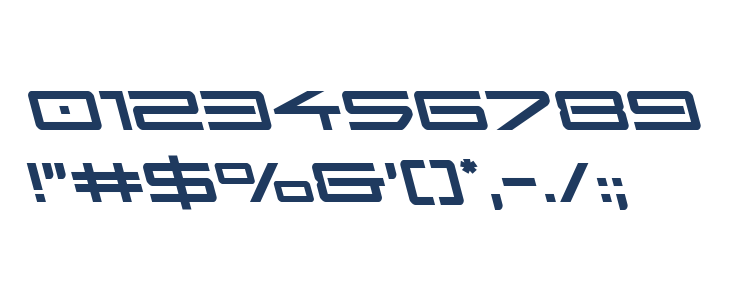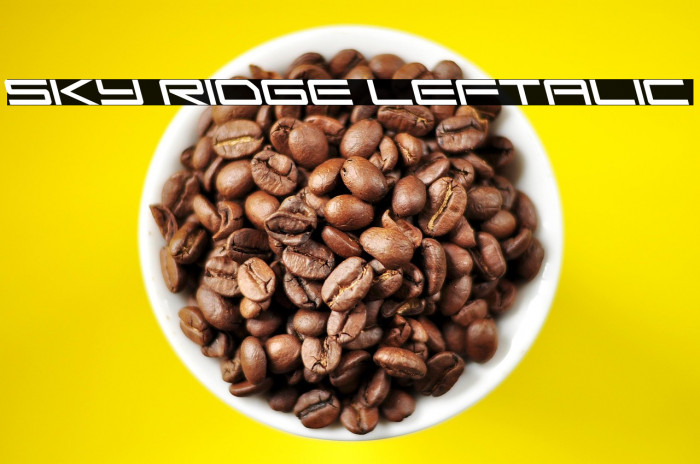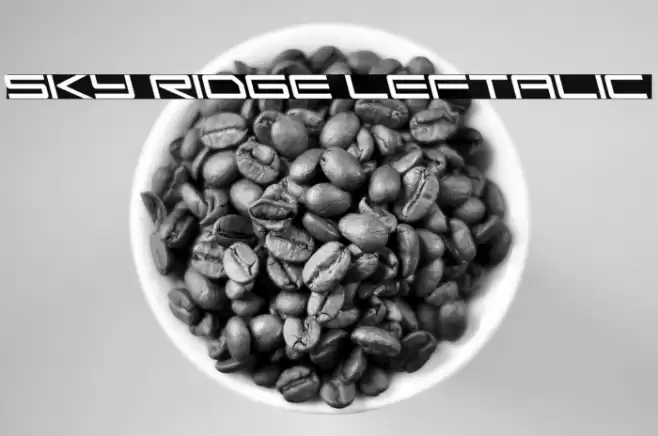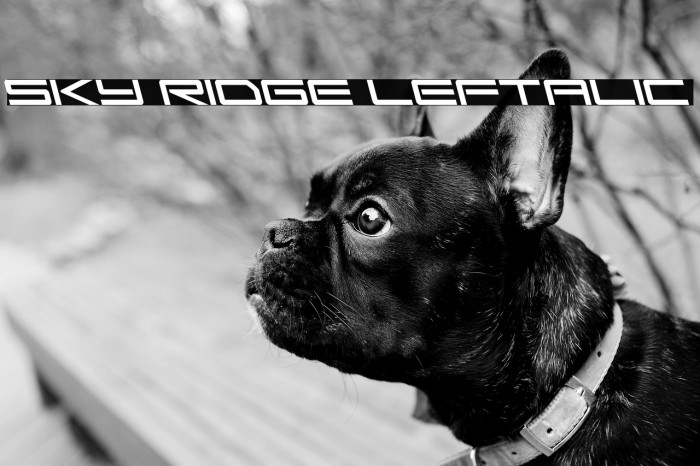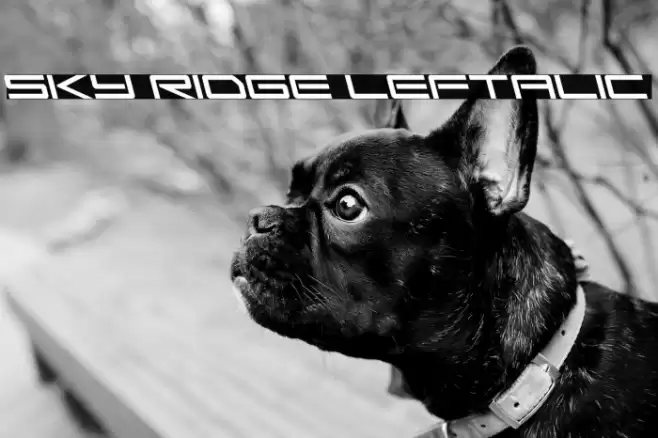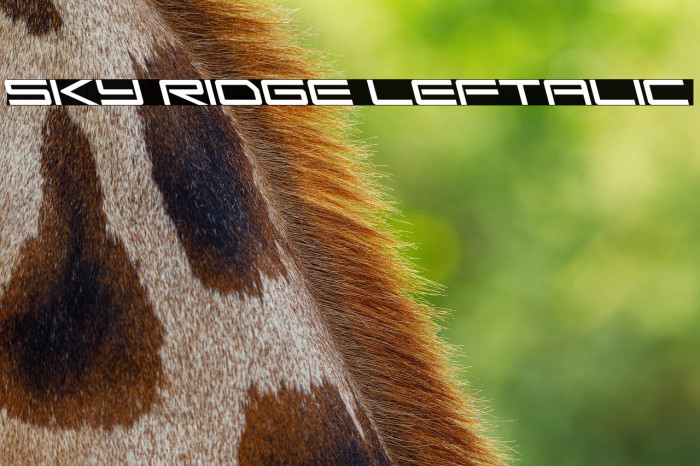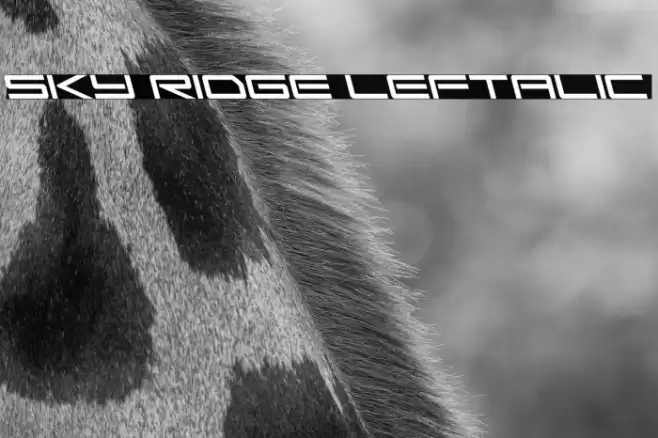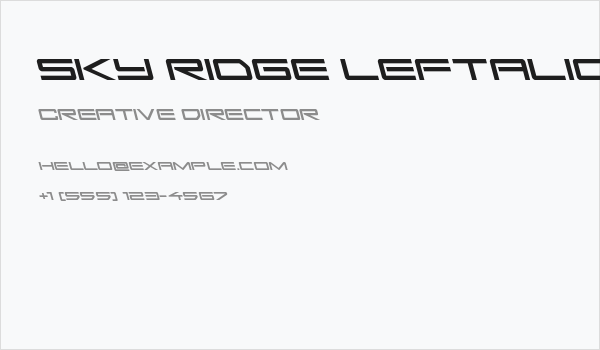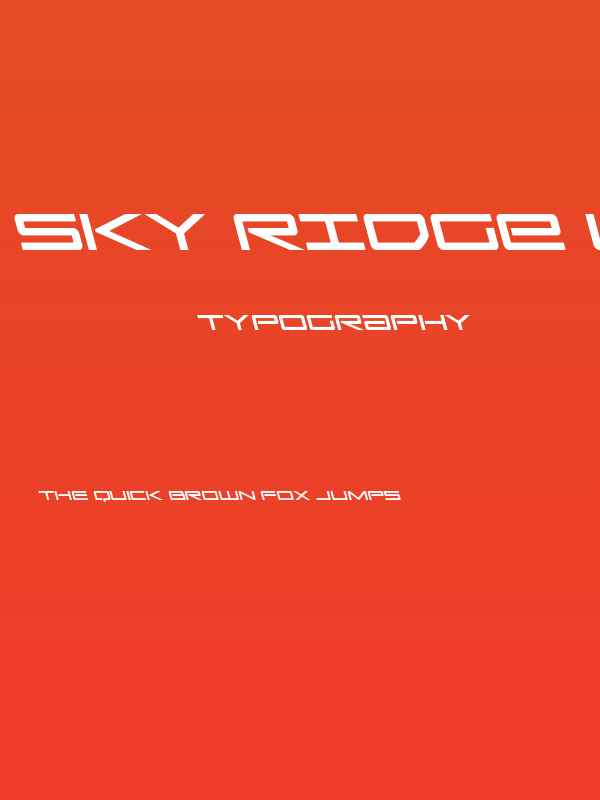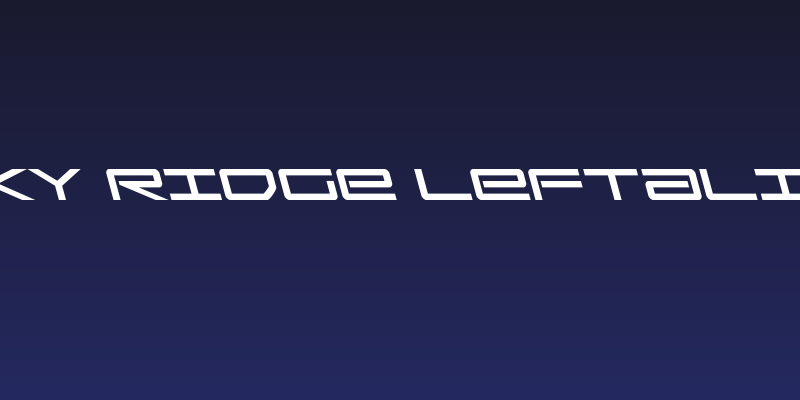
Sky Ridge Leftalic Font
Sky Ridge Leftalic Description
This font features a futuristic and angular design, characterized by its sharp edges and geometric shapes. The letters are slightly italicized, giving a sense of motion and dynamism. The uppercase and lowercase letters maintain a consistent style, with a unique cut-out effect that adds depth and interest. The numbers and special characters follow the same design principles, ensuring uniformity across all glyphs. The overall appearance is sleek and modern, suitable for projects that require a tech-savvy or avant-garde aesthetic.
| Proposed Projects | Ideal for technology branding, sci-fi movie posters, video game titles, and modern digital interfaces. |